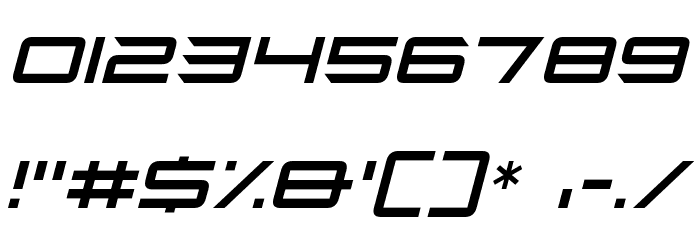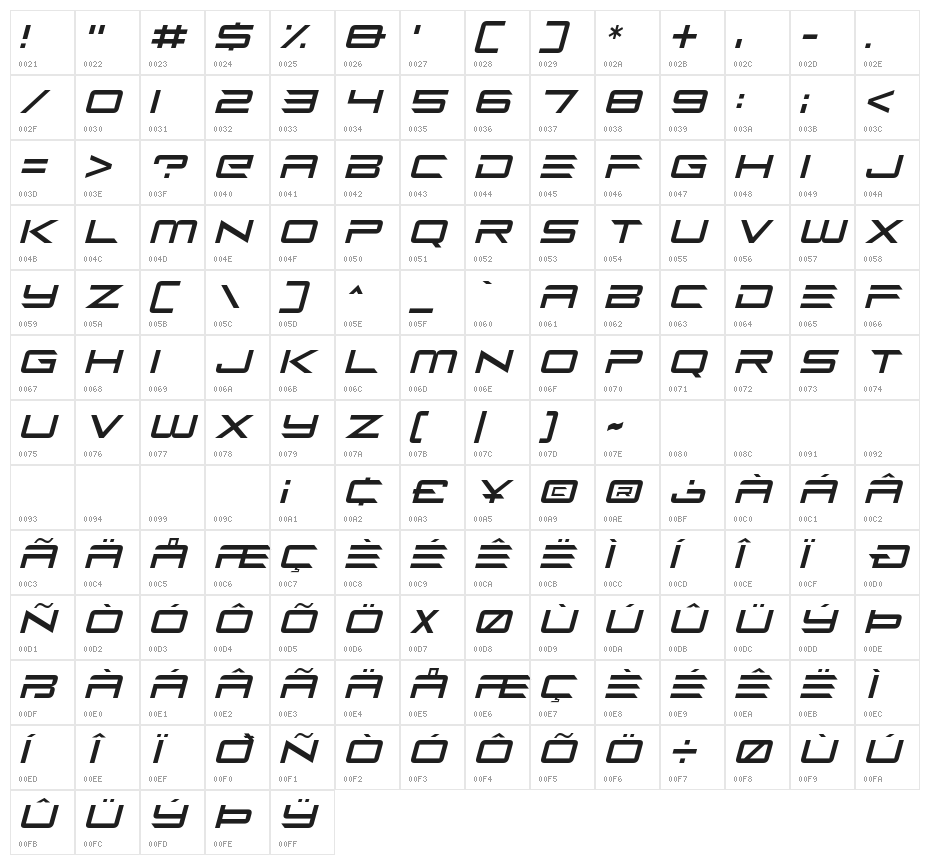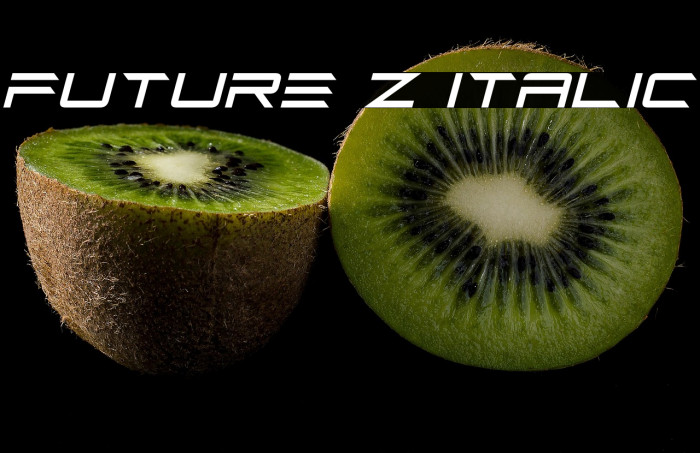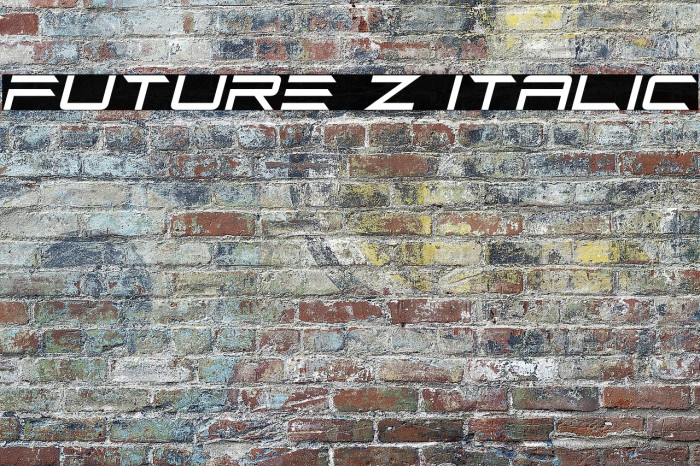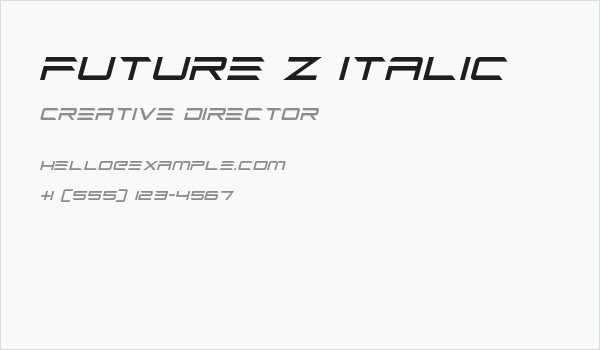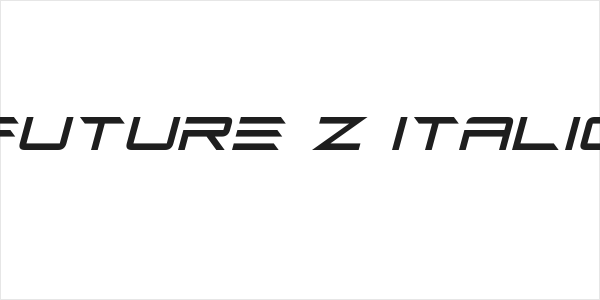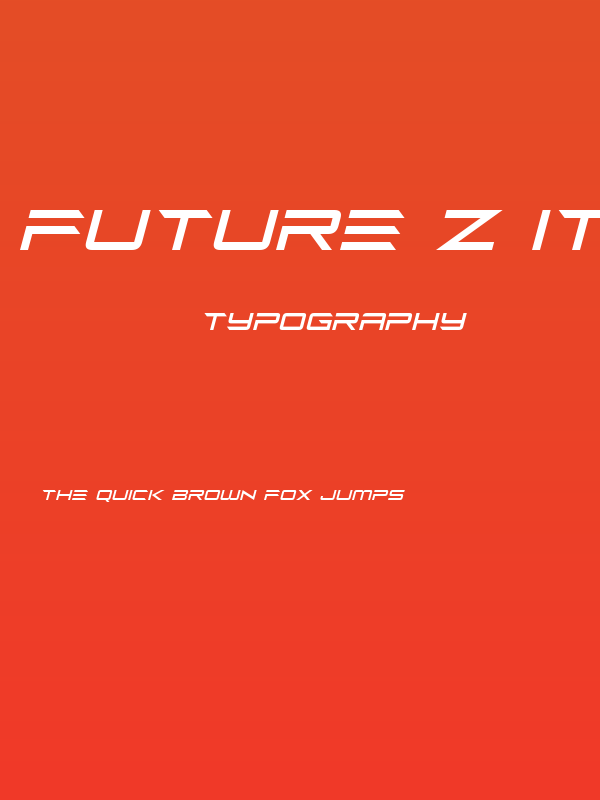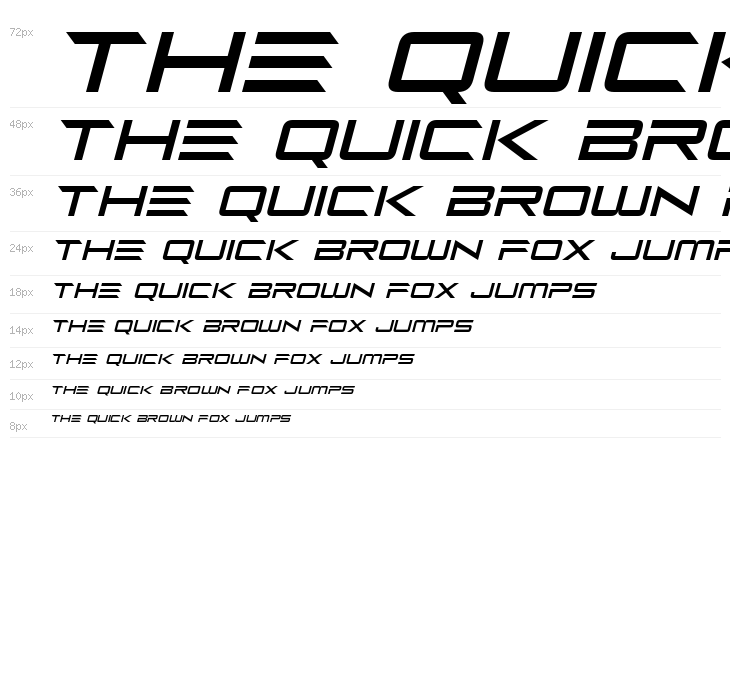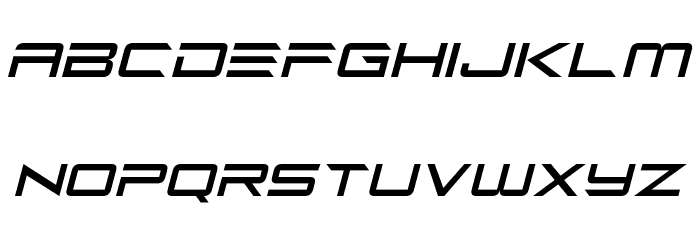
Future Z Italic Font
Future Z Italic Description
This font features a futuristic and sleek design with a distinct italic slant, giving it a dynamic and forward-moving appearance. The characters are constructed with sharp angles and clean lines, creating a sense of speed and modernity. The uppercase and lowercase letters maintain a consistent style, with a slight geometric influence that enhances its contemporary look. The numerals and special characters follow the same design principles, ensuring uniformity across all glyphs. This font is ideal for projects that require a modern and technological aesthetic.
| Proposed Projects | Ideal for technology branding, sci-fi movie posters, video game titles, and modern advertising campaigns. |